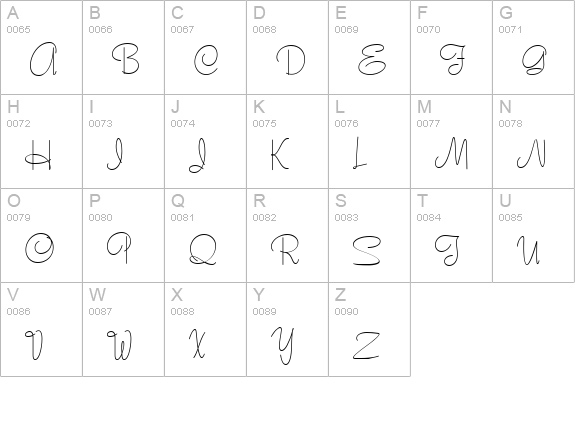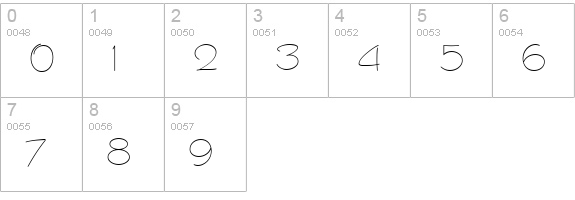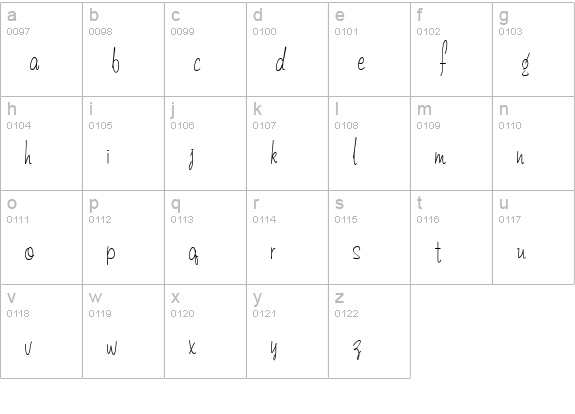
Runaround Sue NF Font Details
The Runaround Sue NF font is a charming and playful typeface that exudes a retro vibe with its unique character shapes and quirky style. This font is perfect for adding a touch of fun and whimsy to your designs, whether you're working on a vintage-inspired project or creating something more contemporary. What sets Runaround Sue NF apart is its free-spirited energy and lively personality, making it a versatile choice for a wide range of design applications. From posters and signage to branding and packaging, this font is sure to make a statement and capture attention. Best of all, Runaround Sue NF is freely available to download at FontsMarket.com, allowing you to easily access and incorporate this delightful font into your projects with ease. Embrace the playful charm of Runaround Sue NF and let your creativity run wild with this fun and dynamic typeface.